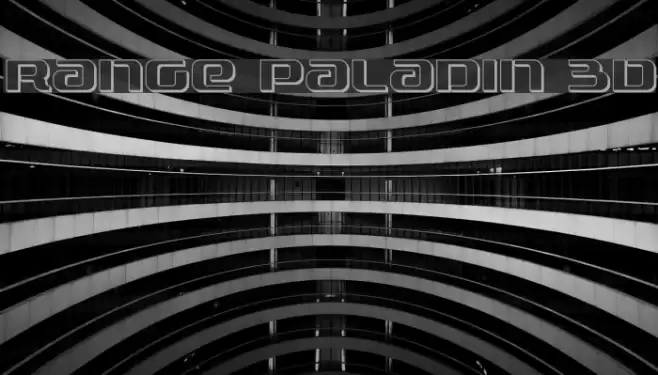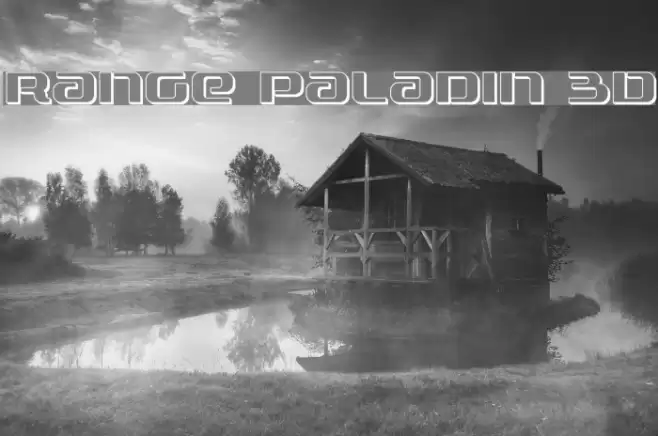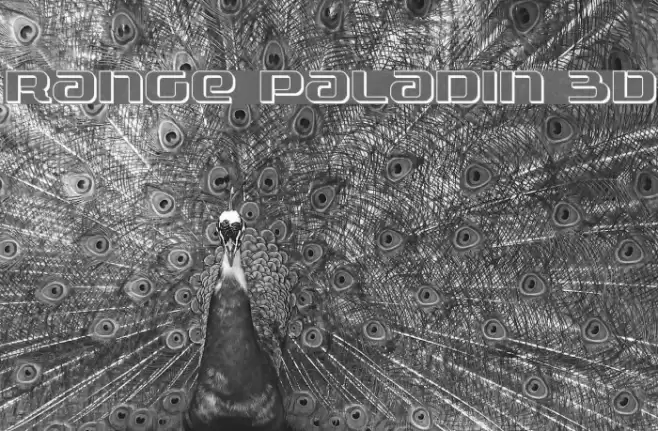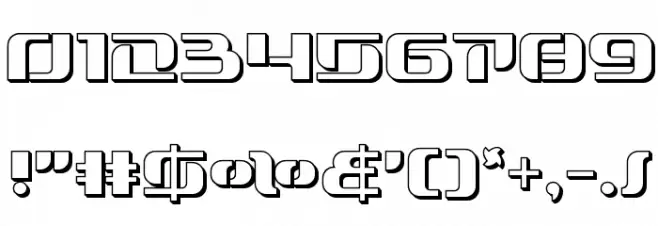
Range Paladin 3D Font
Range Paladin 3D Description
This font features a bold, three-dimensional appearance with a futuristic and geometric design. The characters are outlined with a double-line effect, creating a sense of depth and structure. The uppercase and lowercase letters maintain a consistent style, with angular and block-like shapes that emphasize a modern aesthetic. The numbers and special characters follow the same design principles, ensuring uniformity across all elements. This font is ideal for projects that require a strong visual impact and a contemporary feel.
A bold, 3D geometric font with a futuristic design from Uncategorized fonts.
- Proposed Projects: Ideal for sci-fi themed posters, video game titles, tech branding, and modern logo designs.